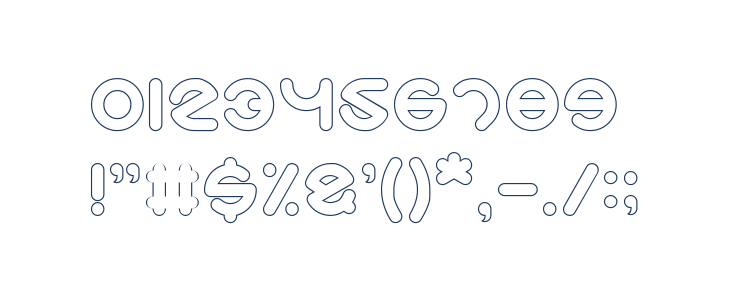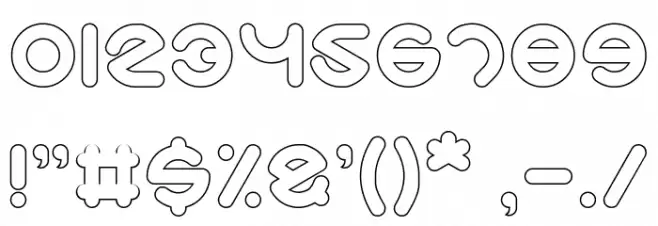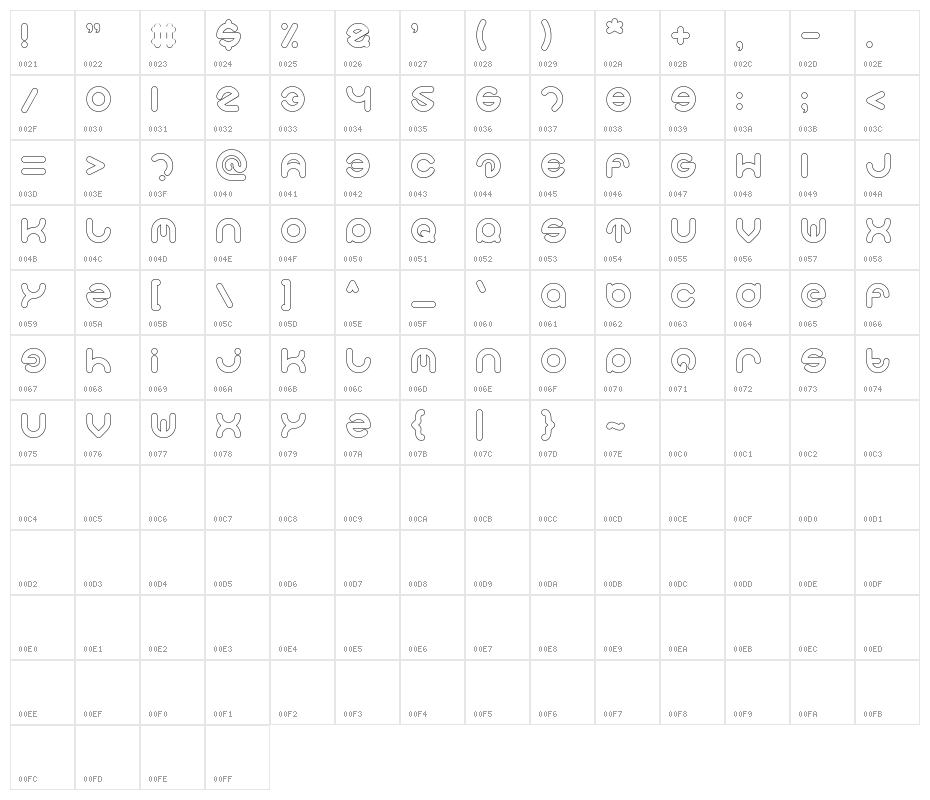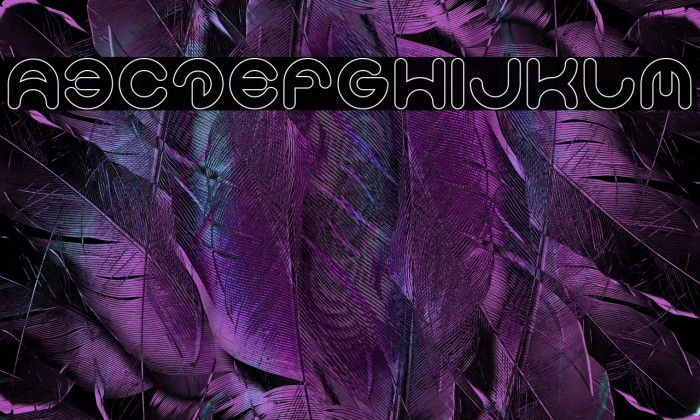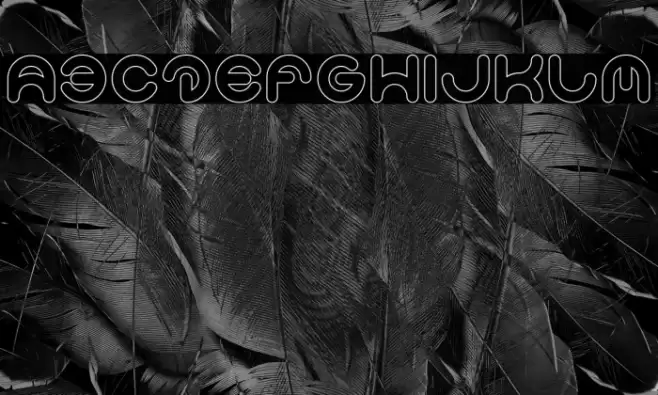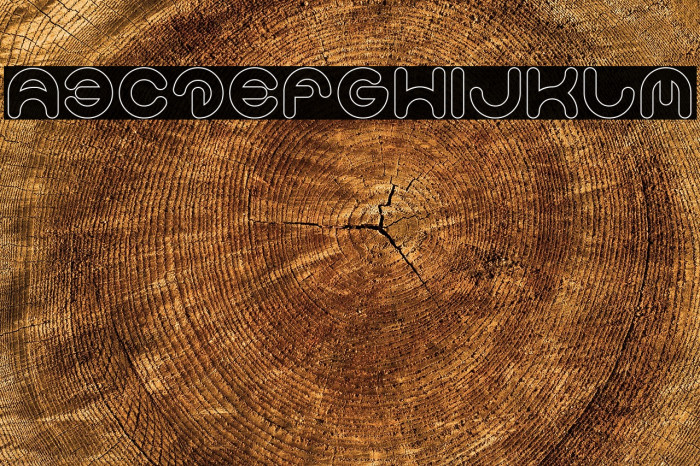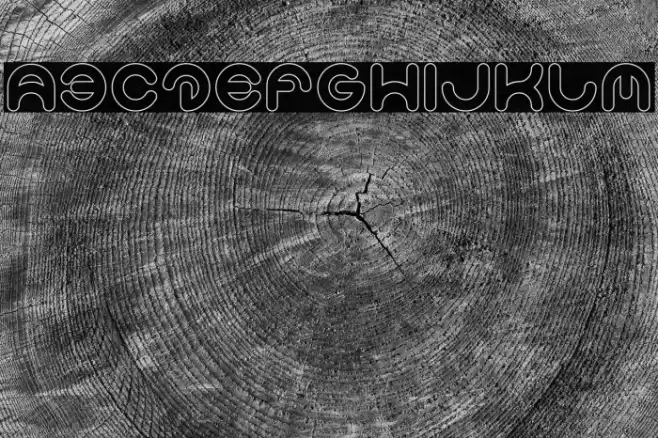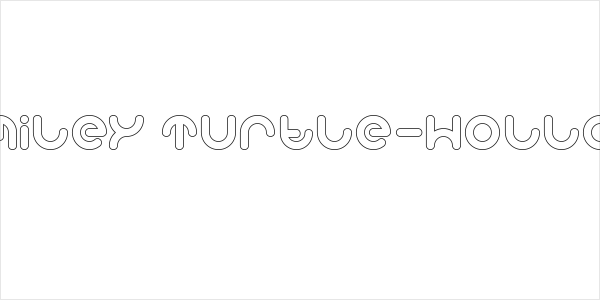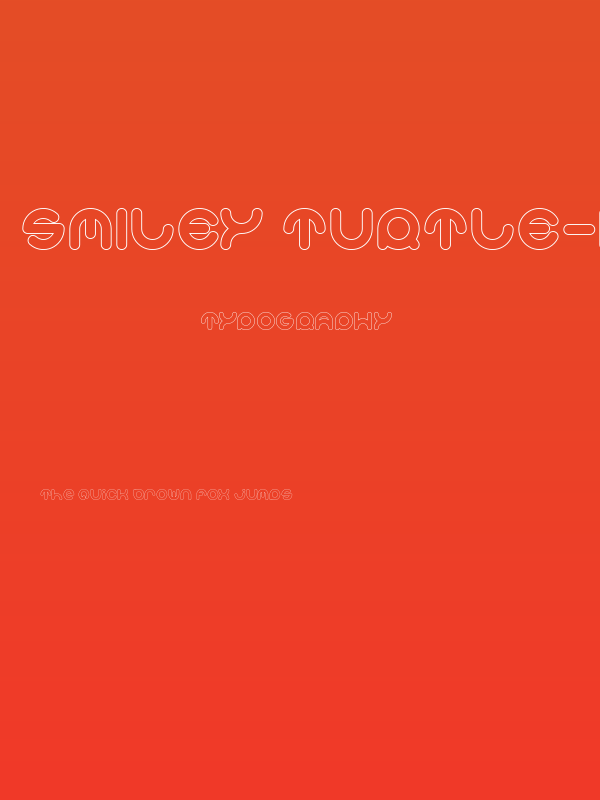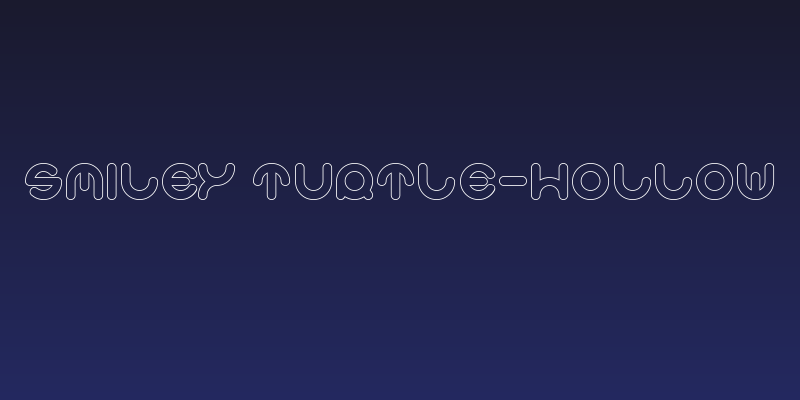
Smiley Turtle-Hollow Font
Smiley Turtle-Hollow Description
This font features a playful and modern hollow design with rounded edges, giving it a friendly and approachable appearance. Each character is outlined, creating a unique hollow effect that adds depth and dimension. The letters are evenly spaced, maintaining a consistent flow across the text. The font's style is both futuristic and whimsical, making it suitable for creative projects. Its geometric shapes and smooth curves contribute to its distinct personality, making it stand out in any design. The font includes a full set of uppercase and lowercase letters, numbers, and a variety of special characters, ensuring versatility in its application.
| Proposed Projects | Ideal for children's books, playful branding, creative posters, and modern digital designs. |